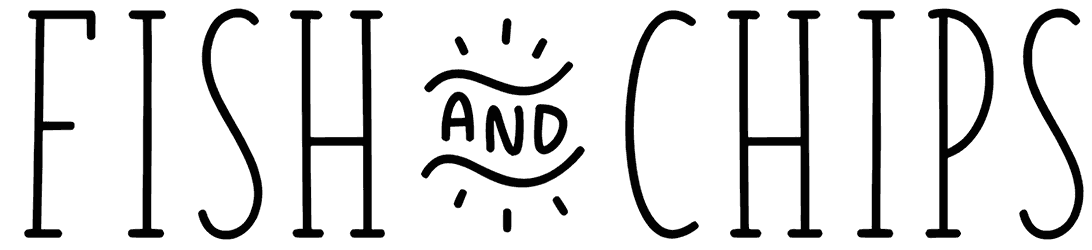
Fish&Chips font is a serif font adhering to traditions. It can be utilized as a doodle font or for amusement parks. Regarding its readability, it can be suitable for training books,
The background with the early 19th-century theme provides an opportunity to use it for food packaging, restaurant logos, promotions, and websites. Despite its name, it tends to be used in other industries like tourism and transport systems.
Meet Fish&Chips – a sans serif handwritten font